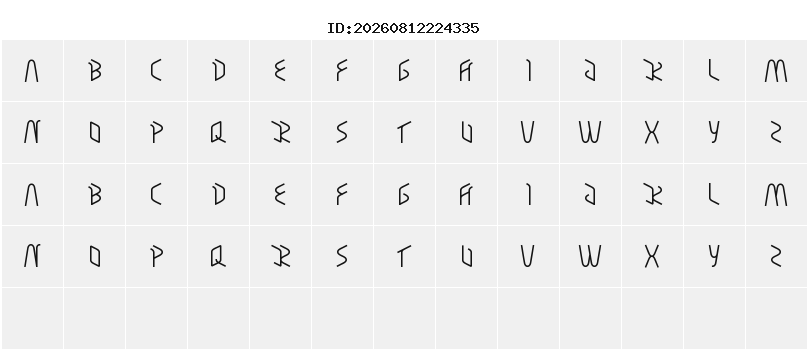
• Font Name: Respect
• Full Font Name: Respect
About Respect.ttf
Respect.ttf is a modern, elegant sans-serif font designed for ultimate readability and visual harmony. Perfect for branding, headlines, web design, and print materials.